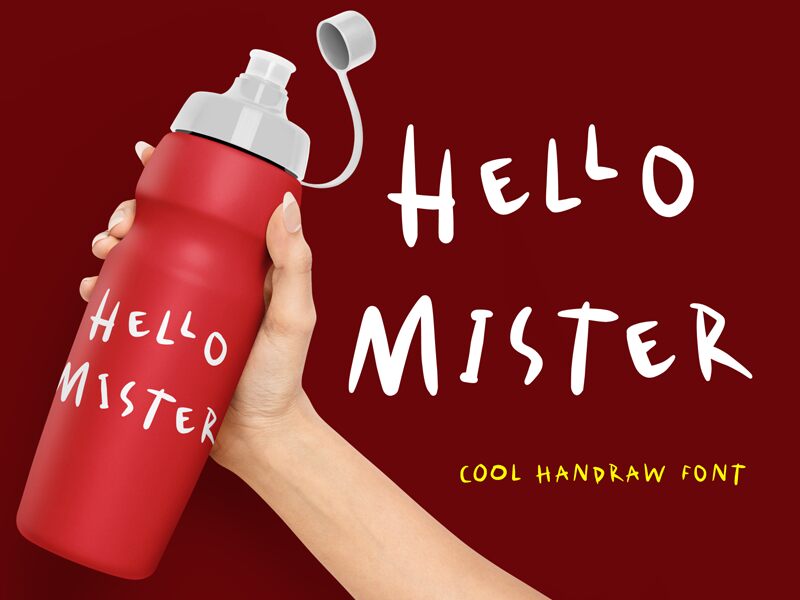
Hello Mister, a handwritten font created by Nuryanto Dwi. This font is perfect for creating a personal touch in your projects, such as greeting cards, posters and invitations.